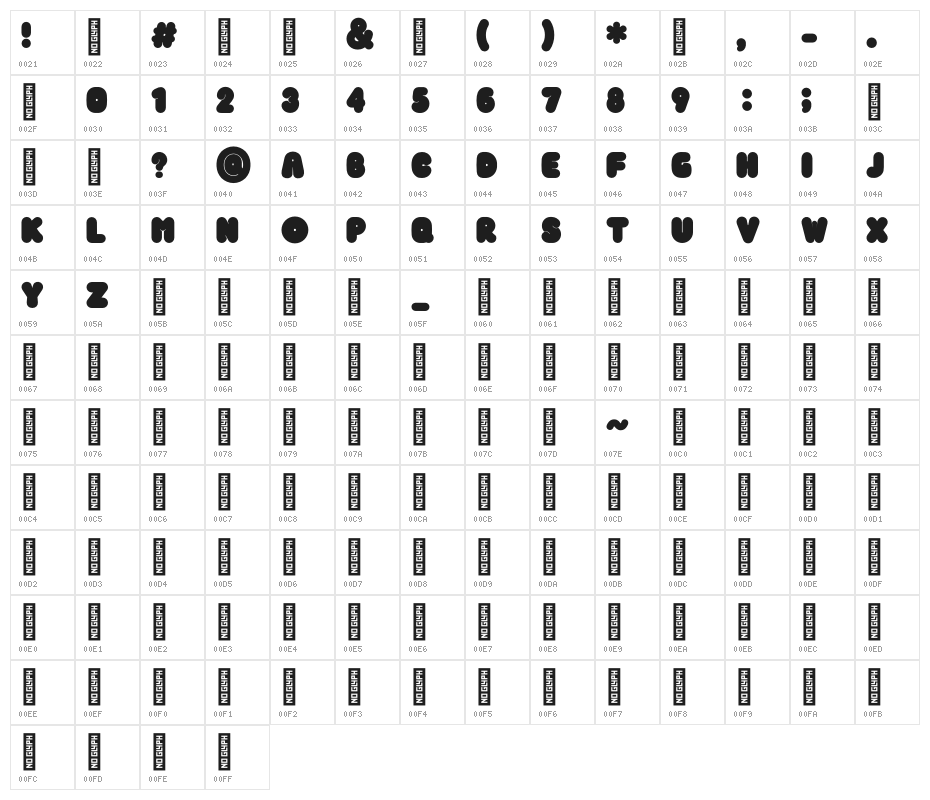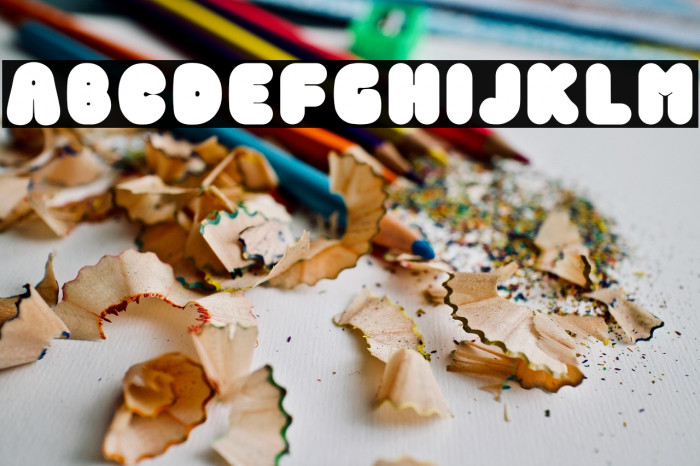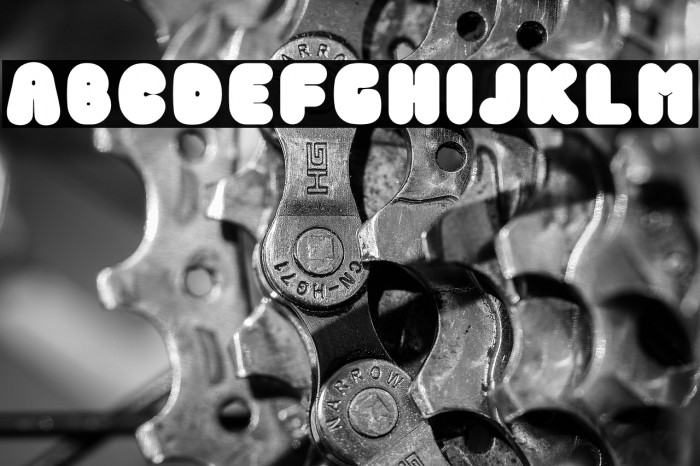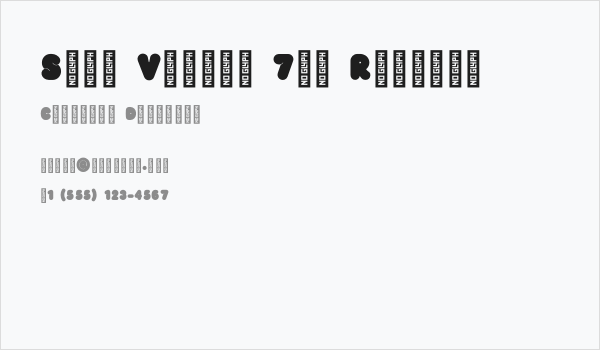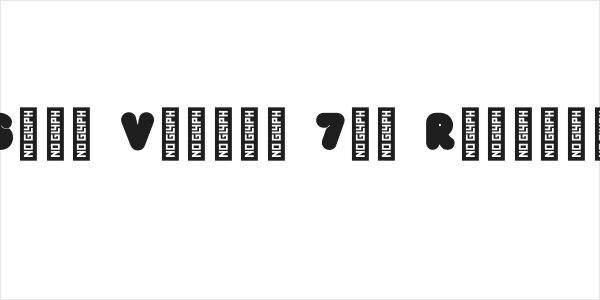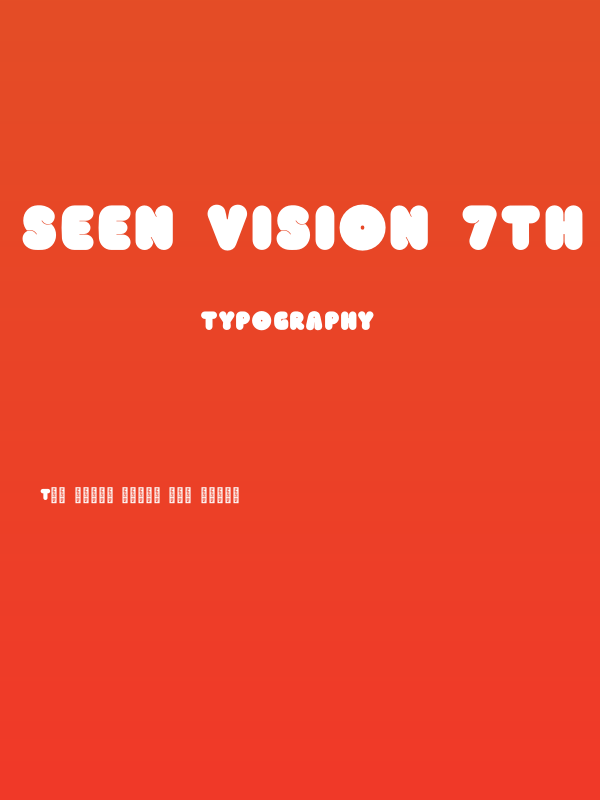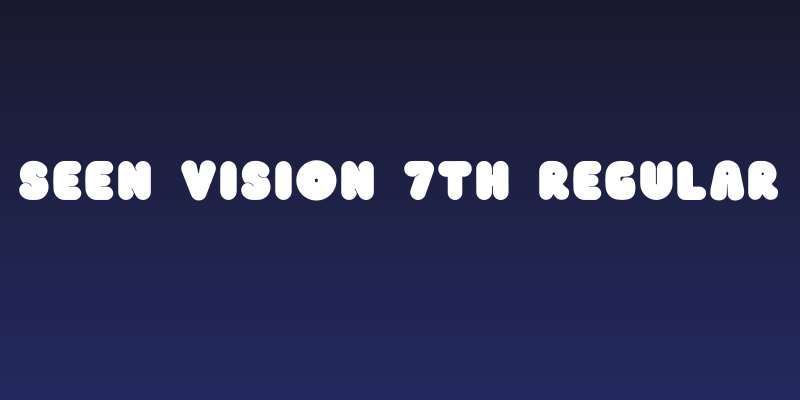
Seen Vision 7th Regular Font
Seen Vision 7th Regular Description
This font features bold, rounded characters that convey a playful and modern aesthetic. The letters are uniformly thick, creating a strong visual impact. The uppercase letters are particularly prominent, with a consistent roundness that adds to the font's friendly and approachable feel. The numbers follow the same design principles, ensuring a cohesive look across all characters. The font lacks special characters, which limits its use in more complex text settings. Its simplicity and boldness make it ideal for projects that require a strong, eye-catching typeface.
| Use Case | Headlines, Logos |
| Proposed Projects | Ideal for children's books, playful branding, posters, and headlines. |